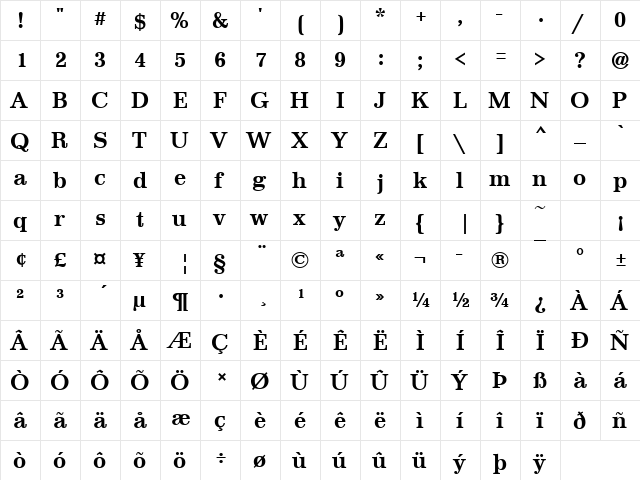
Mariam Becker Med Regular
Design Context for Mariam Becker Med Typeface
Mariam Becker Med is a composed and adaptable typeface that performs quietly and consistently across a wide range of design contexts.